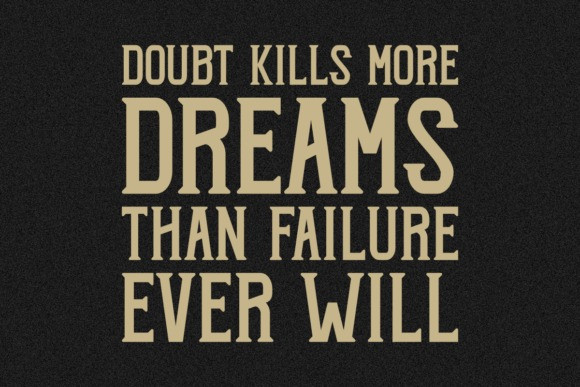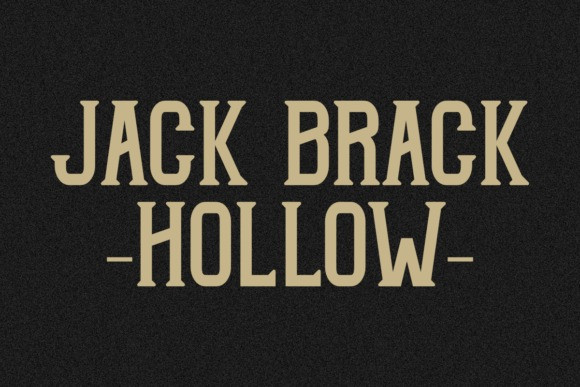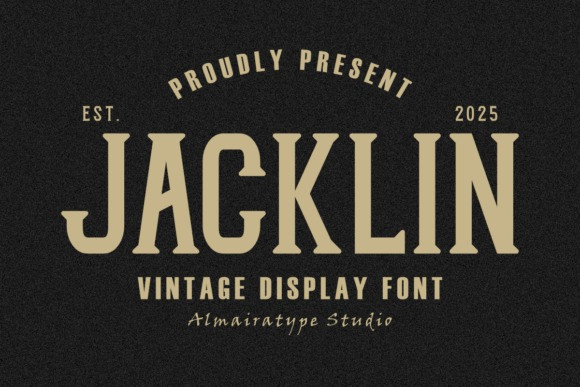
Jacklin Font
Jacklin Font is a bold vintage display font that combines classic strength with timeless elegance. Featuring tall serifs and retro-inspired letterforms, this font is designed to make your designs stand out with confidence and character. Perfect for Cricut crafts, sublimation projects, and Print On Demand products, Jacklin works beautifully on t-shirts, mugs, posters, tote bags, signage, and vintage branding. Whether you’re creating retro-inspired logos, sports team apparel, or statement typography, Jacklin delivers a professional yet nostalgic vibe.